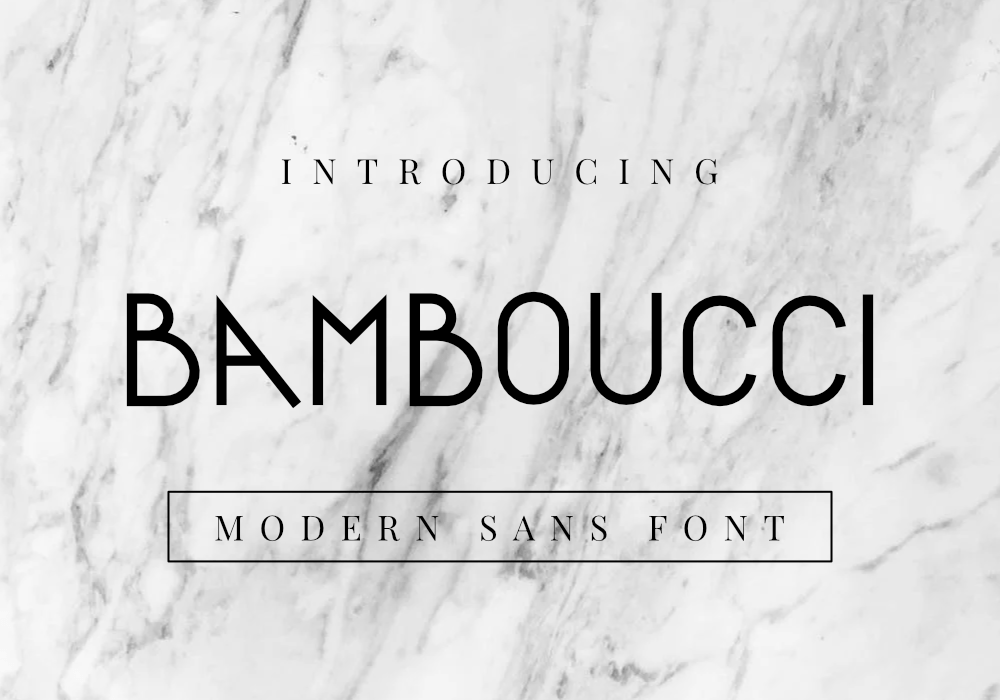
Bamboucci Font by GraphicsFamily Bamboucci is a minimal and neat sans serif font created by GraphicsFamily. It can easily be matched to an incredibly large set of projects, so add it to your creative ideas and notice how it makes them stand out! Enjoy! !IMPORTANT You may use this font for both personal